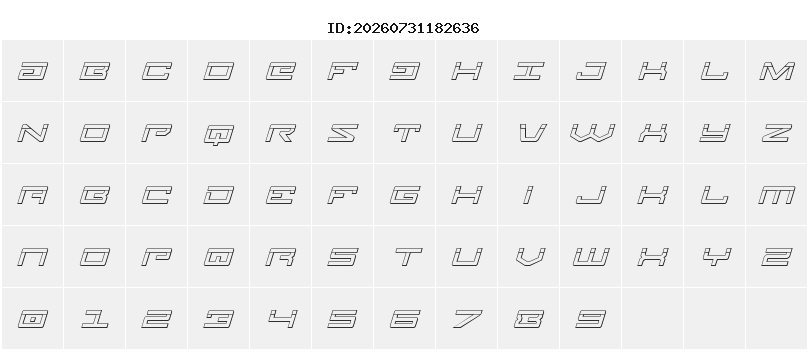
• Font Name: Legion Bullet Italic
• Full Font Name: Legion Bullet Italic
Legion Bullet Italic.ttf is a modern, elegant sans-serif font designed for ultimate readability and visual harmony. Perfect for branding, headlines, web design, and print materials.